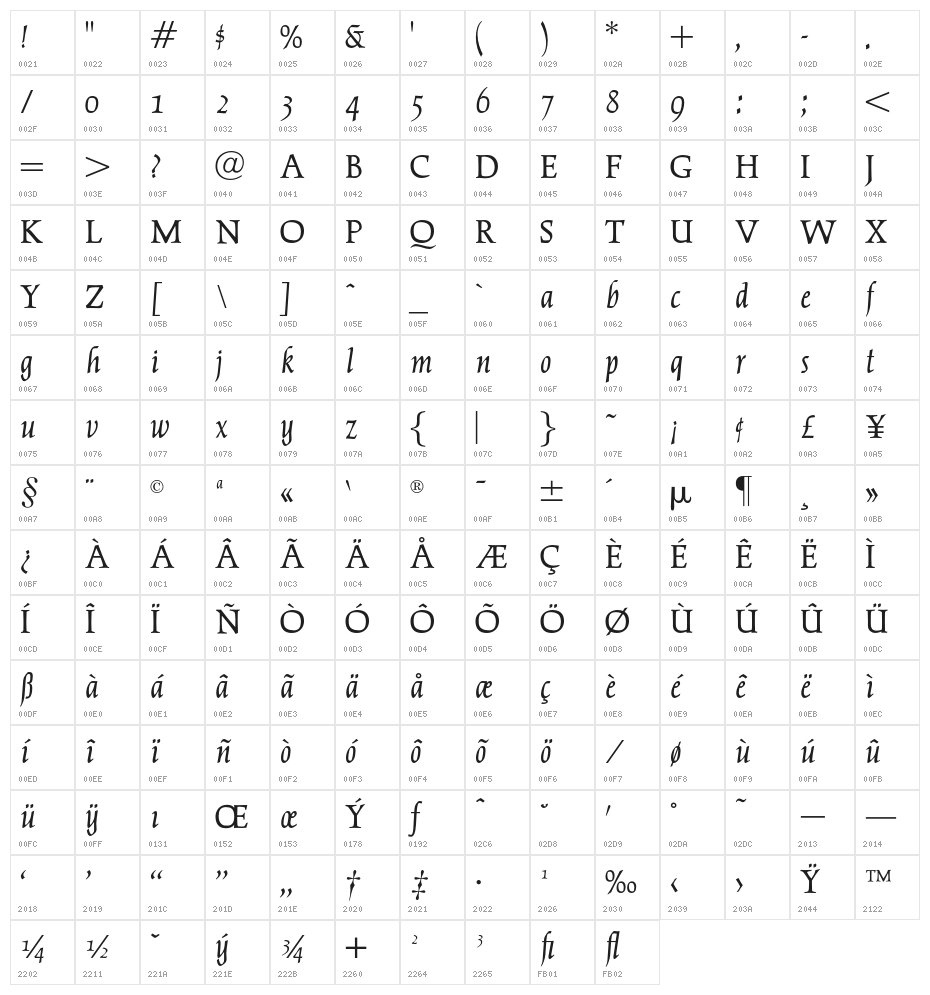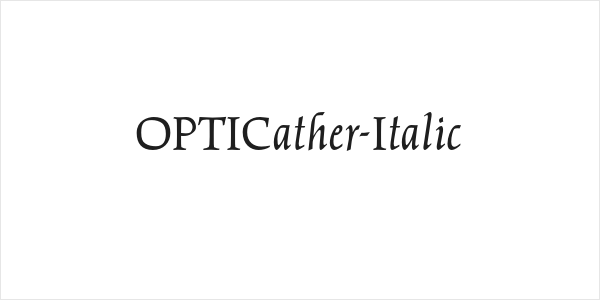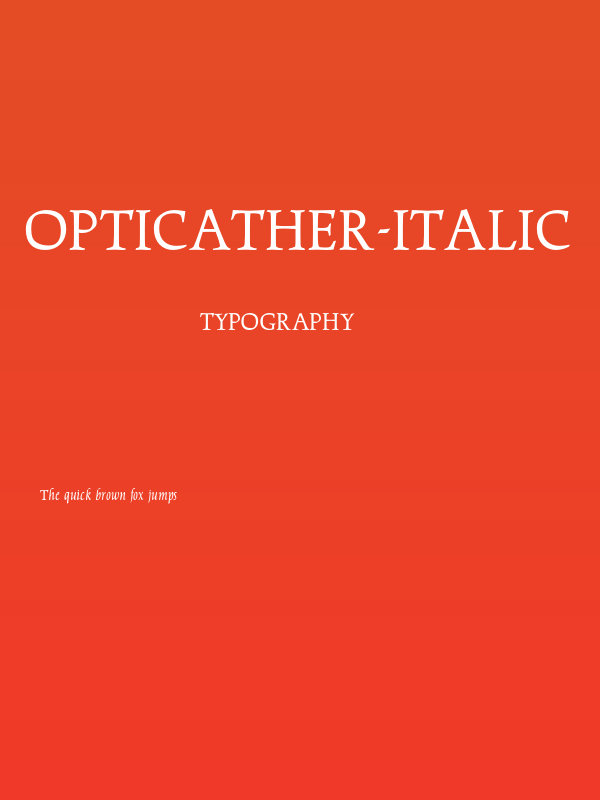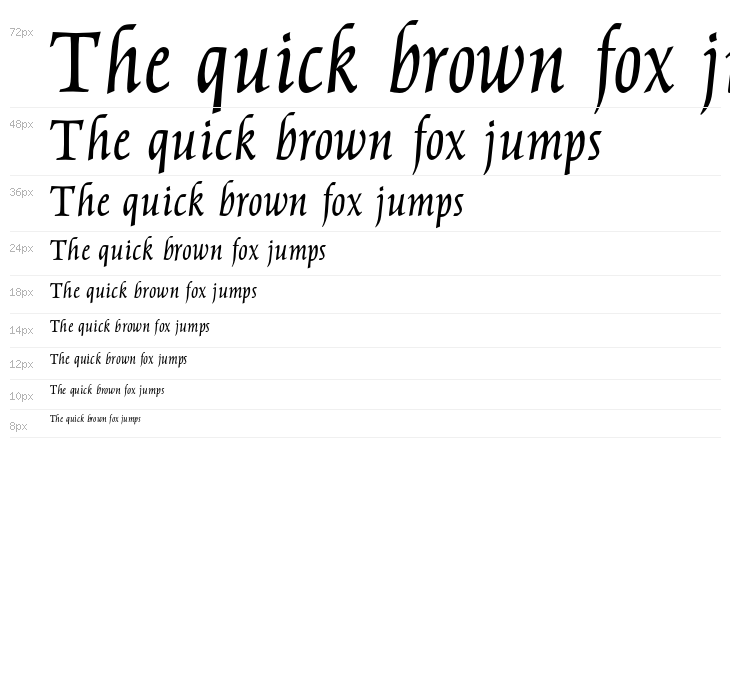
OPTICather-Italic Font
OPTICather-Italic Description
This font features a classic serif style with elegant, flowing lines and a slight slant, giving it an italicized appearance. The uppercase letters are bold and commanding, while the lowercase letters maintain a graceful and fluid form. The numerals are clear and distinct, with a traditional design that complements the overall aesthetic. Special characters are well-integrated, maintaining the font's cohesive look. The strokes vary in thickness, providing a medium contrast that enhances readability while retaining a sophisticated charm.
| Proposed Projects | Ideal for formal invitations, elegant branding, book covers, and editorial design. |